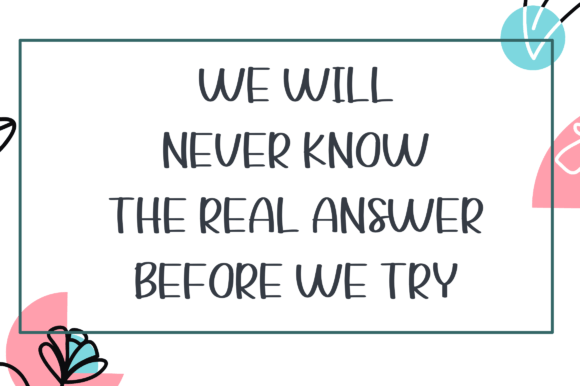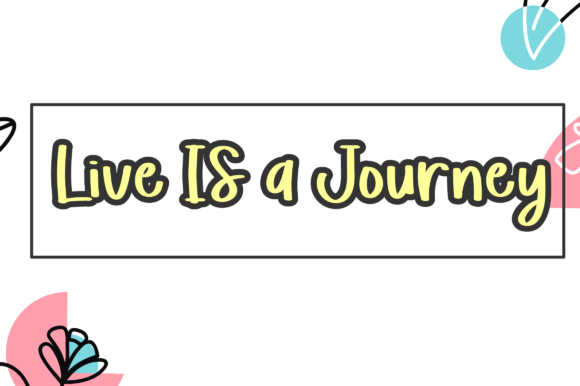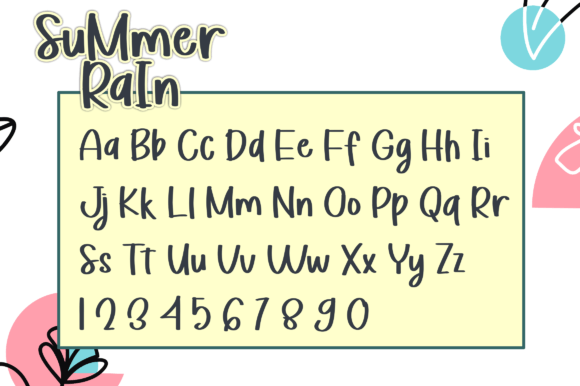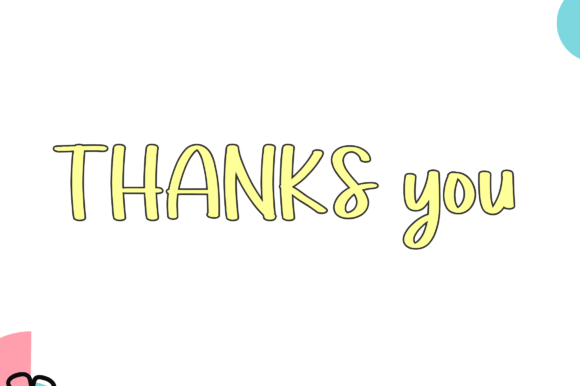
Summer Rain Font
About Summer Rain Font
**Summer Rain Font: Where Enchantment Meets Handwritten Grace**
Introducing “Summer Rain,” an enchanting handwritten font designed to infuse a romantic feel into a diverse range of creative projects. With its graceful script, Summer Rain is a versatile typeface suitable for everything from greeting cards to headlines, promising to bring a touch of enchantment to your next endeavor.
At the heart of “Summer Rain” is a captivating enchantment that effortlessly enhances your creative works. The script’s handwritten characters carry an elegant and graceful touch, making it an ideal choice for designs that seek to evoke a romantic atmosphere. “Summer Rain” is more than a font; it’s a visual storyteller that transforms your text into a poetic experience.
The versatility of “Summer Rain” opens up a myriad of creative possibilities. Picture it gracing greeting cards with its romantic allure, adding a touch of sophistication to headlines, or becoming the signature font for projects that require a delicate yet impactful script. This font becomes a versatile companion, seamlessly aligning with the essence of your creative vision.
The adaptability of “Summer Rain” makes it suitable for various applications across different mediums. Whether you’re working on digital designs, print materials, or crafting special event invitations, this font becomes the dynamic brushstroke that elevates your work with a touch of handwritten grace.
In conclusion, “Summer Rain” is more than just a font; it’s an invitation to embrace enchantment and handwritten grace. Embrace it, and watch as your designs come alive with a poetic and romantic touch. With “Summer Rain,” every letter becomes a brushstroke, leaving an indelible mark of elegance on your design journey.